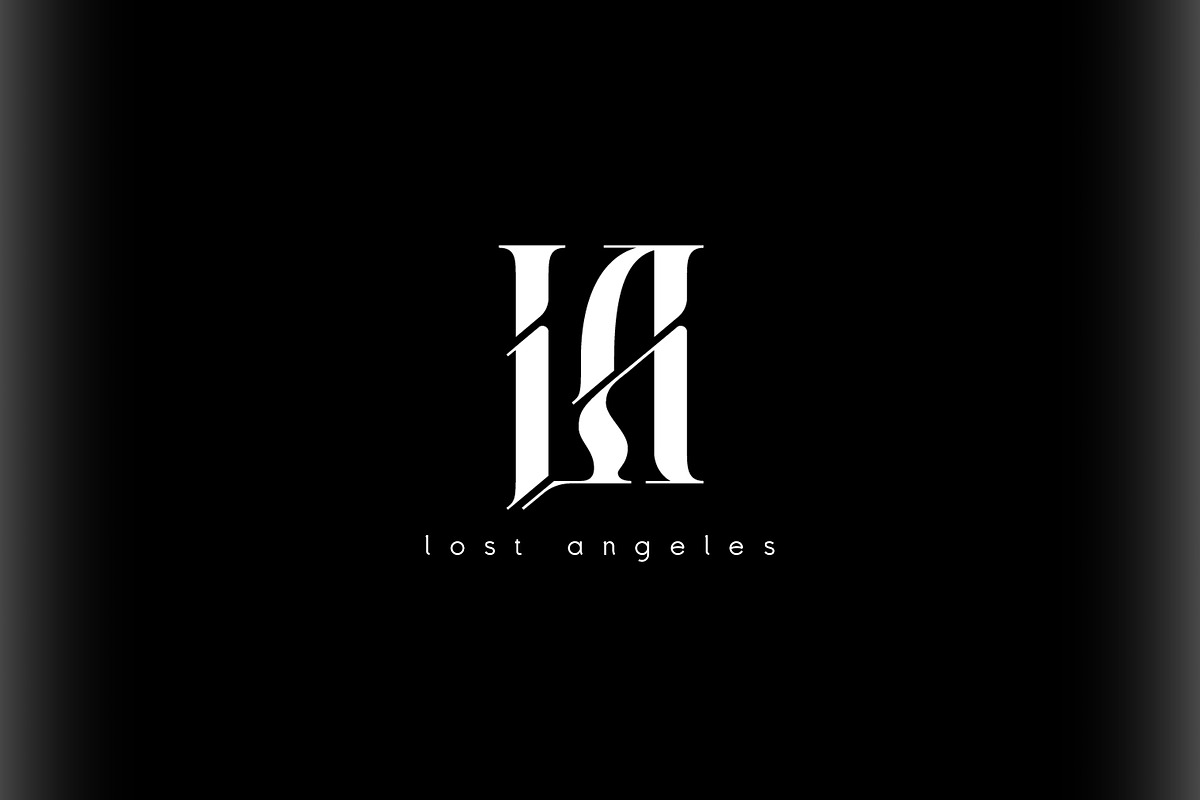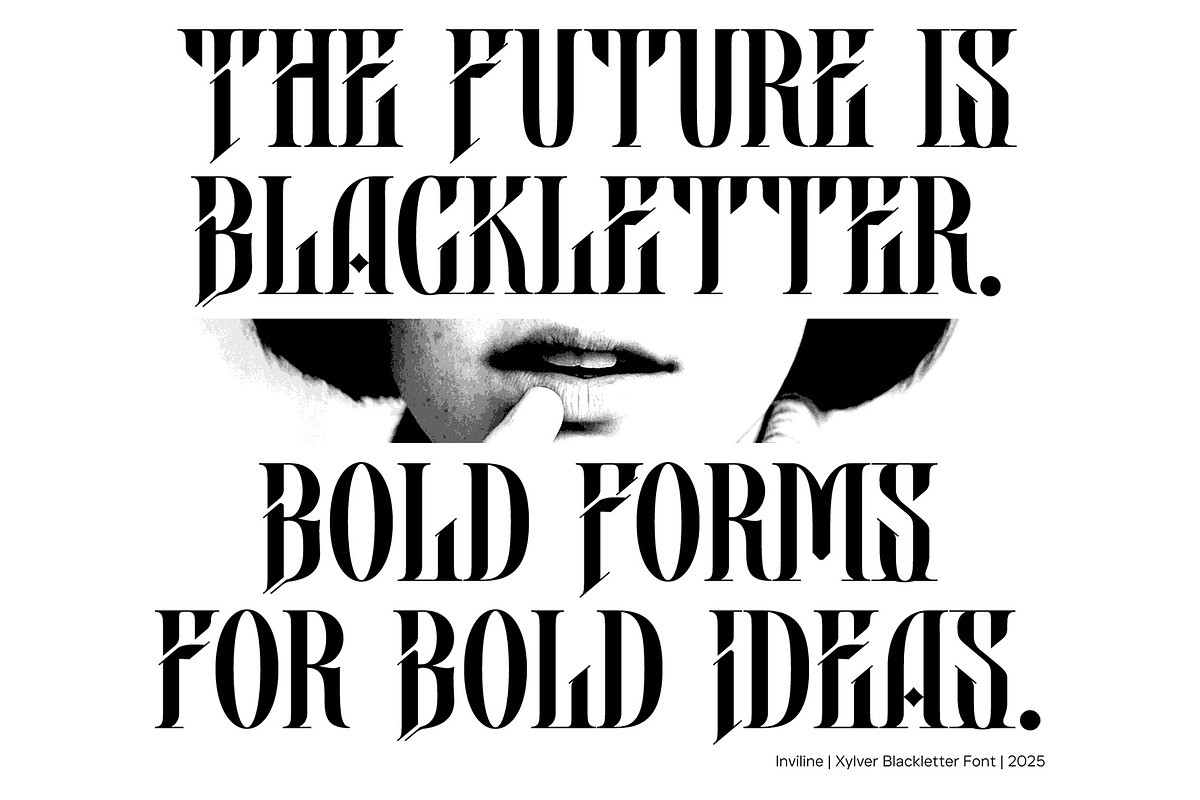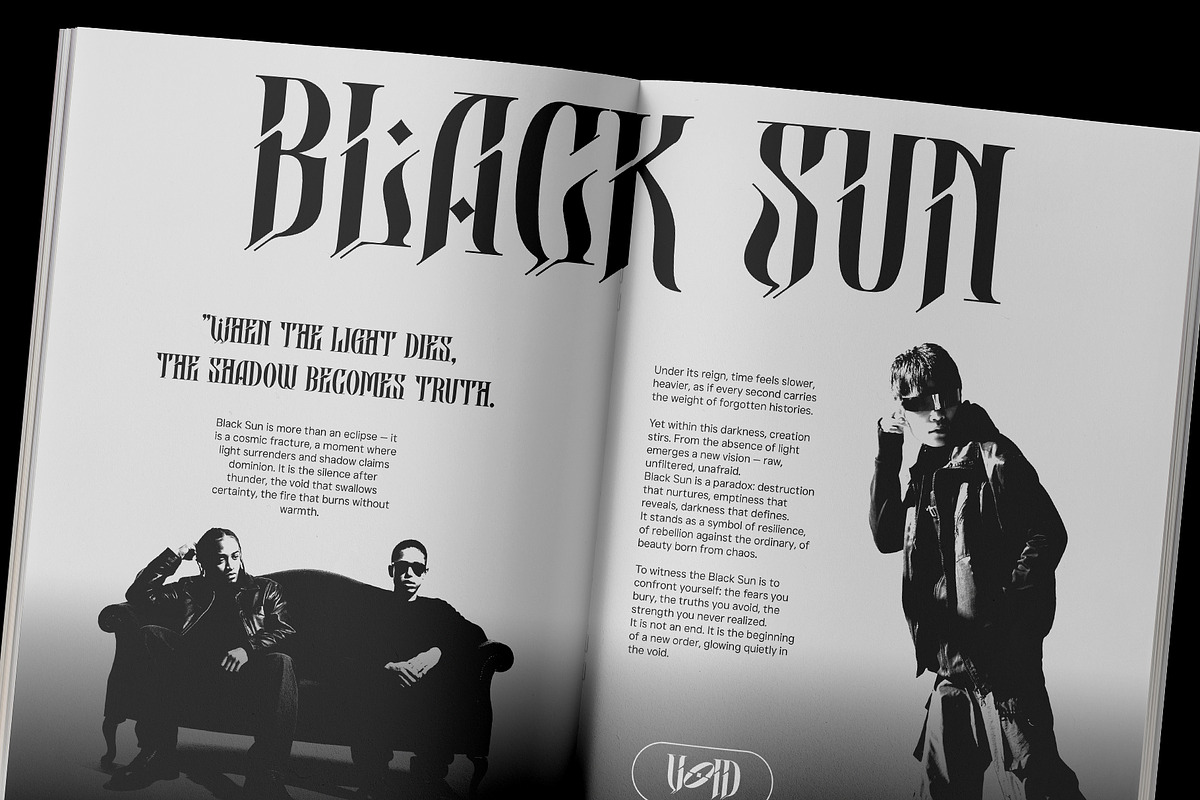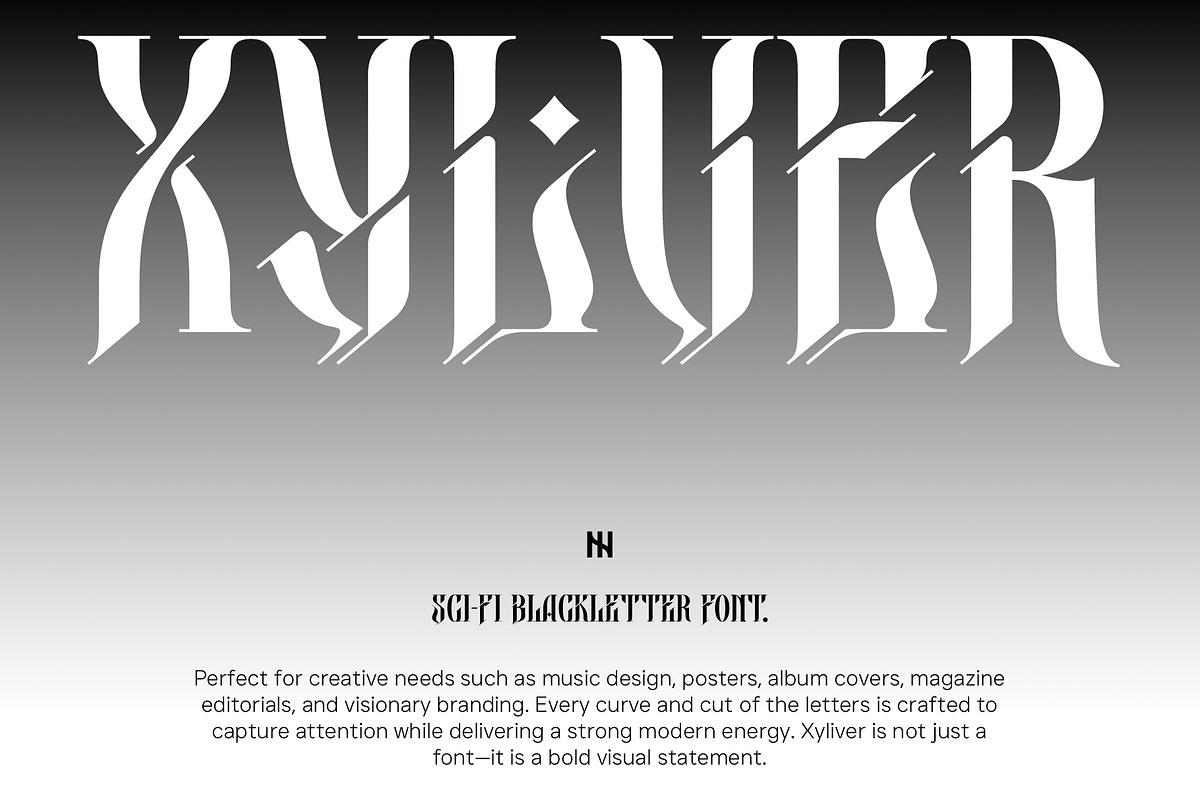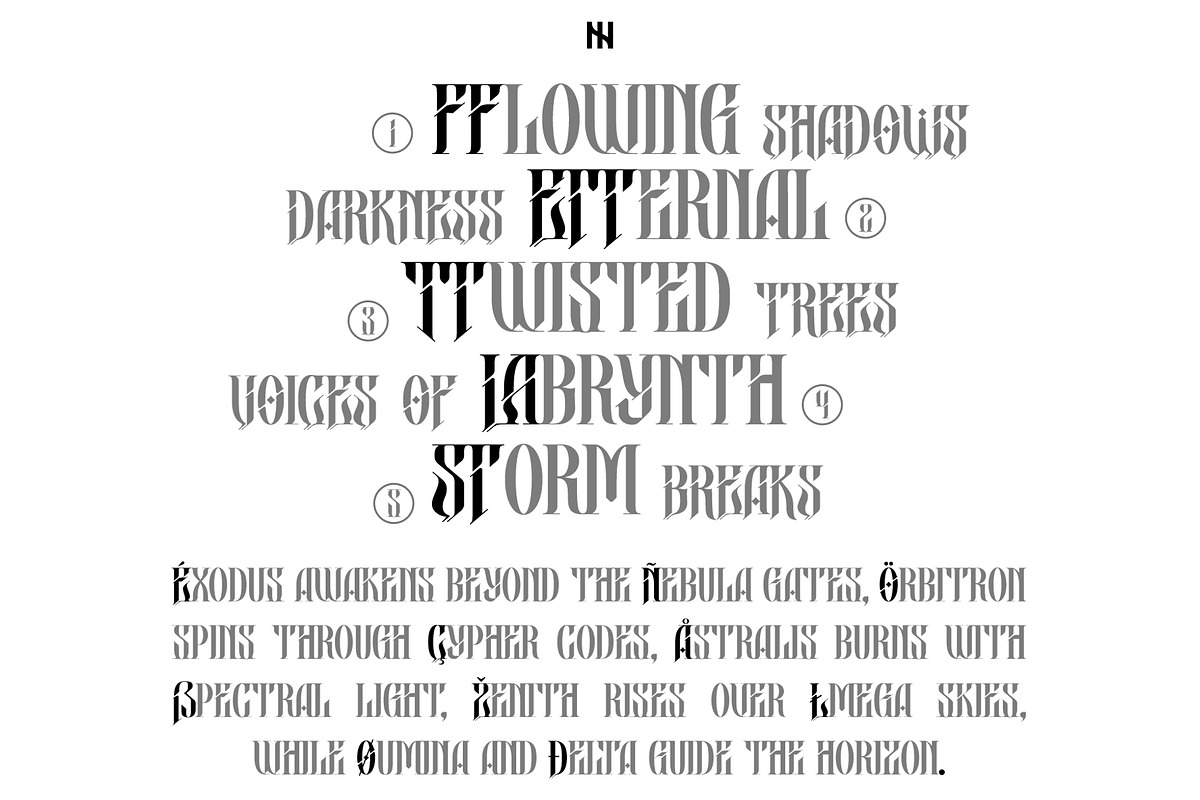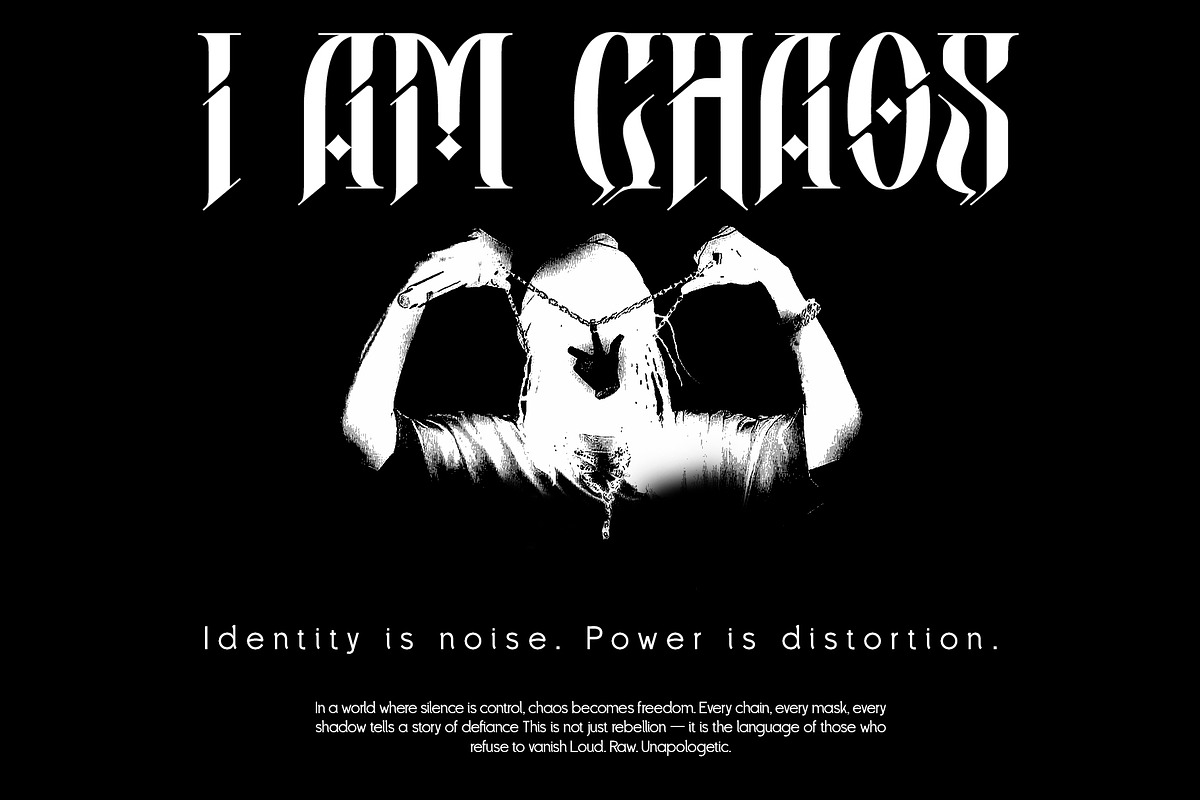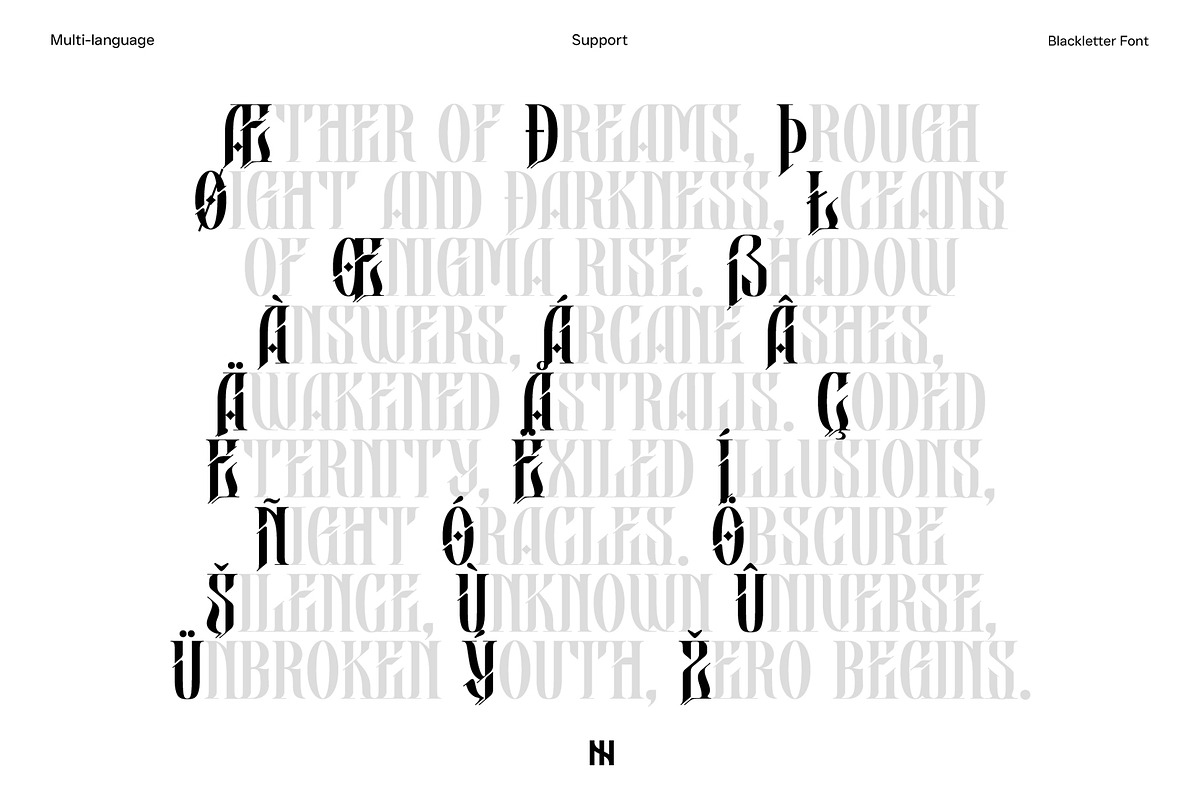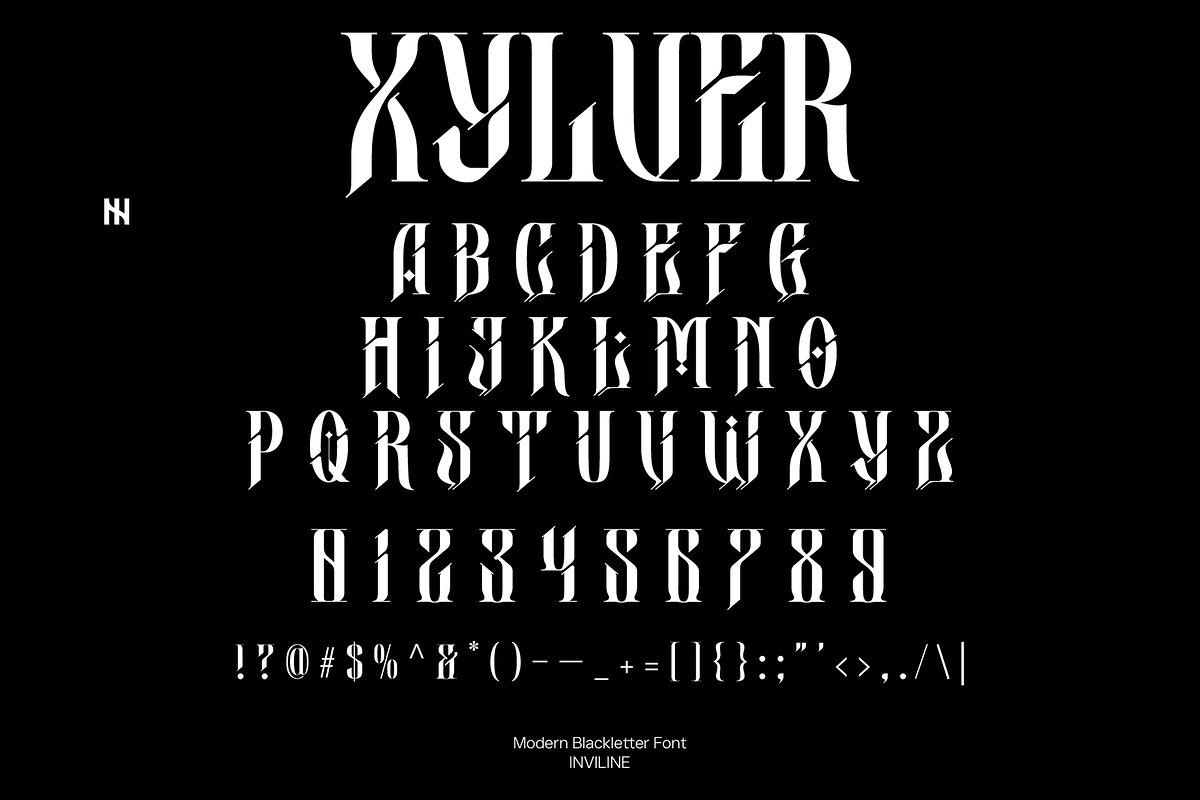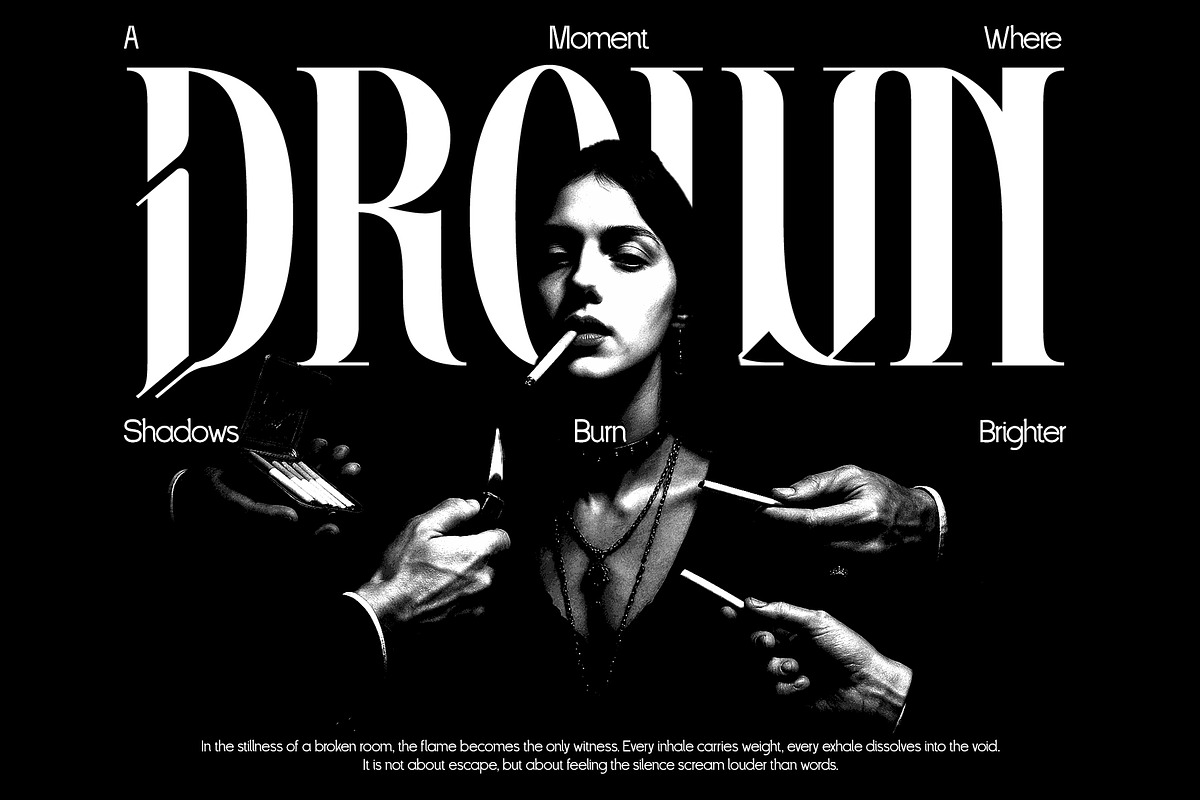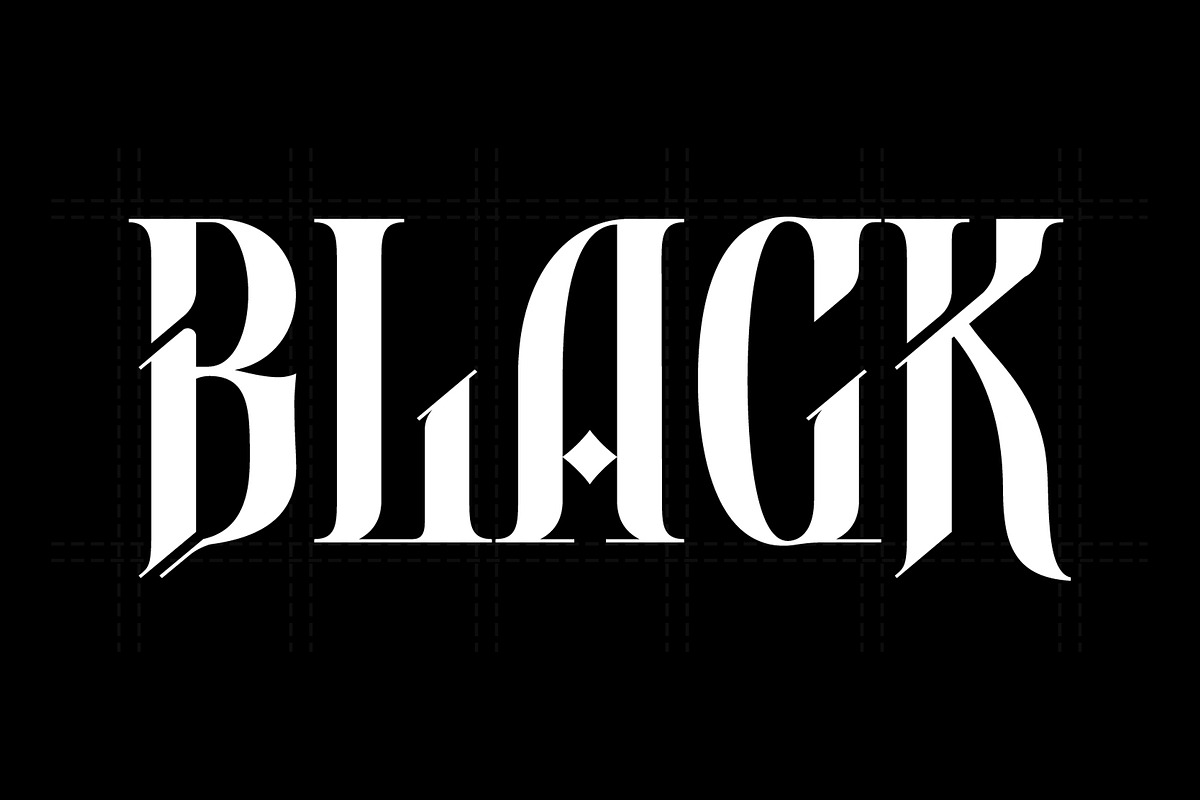
Xylver - Blackletter Font
Xylver – Sci-Fi Blackletter Font
Modern. Experimental. Apocalyptic.
Step into the dark realm of futuristic typography with Xylver, a blackletter font with a sharp sci-fi twist. Bold, distorted, and dripping with attitude, Xylver merges medieval rebellion with futuristic aesthetics, making it the perfect choice for designs that demand presence, mystery, and dominance. Inspired by dystopian visions, cyber rituals, and gothic street fashion, Xylver was made to break the silence — letter by letter. Whether you're crafting album covers, experimental posters, movie titles, or futuristic branding, this typeface offers a thrilling visual identity that stands on the edge of reality and chaos.
- Uppercase Letters A–Z
- Numbers 0–9
- Punctuation & Symbols
- Unique Glyph Alternates
- Sci-Fi Inspired Ligatures
- Multilingual Support (Latin Extended)
- Underground music branding
- Sci-fi and horror poster design
- Cyberpunk fashion identity
- Techno rave flyers & titles
- Streetwear editorial layouts
- Concept art & experimental zines